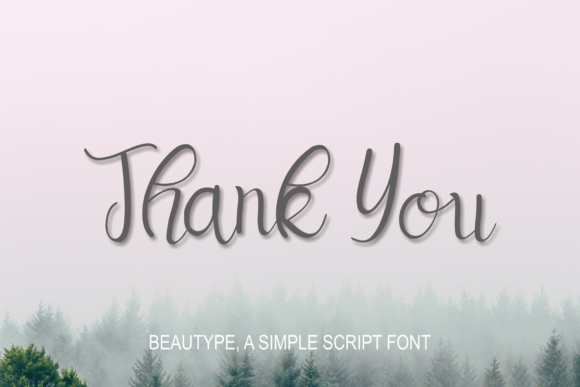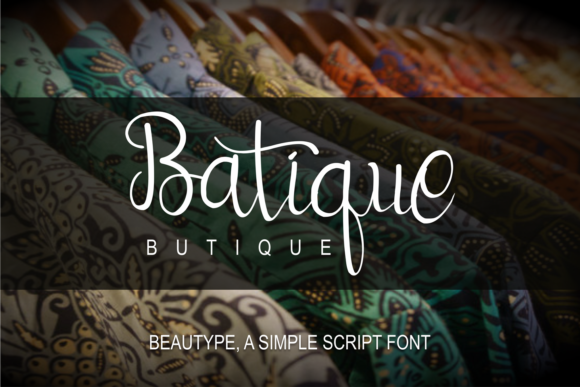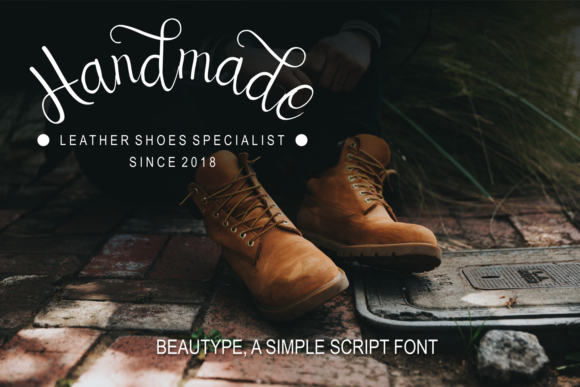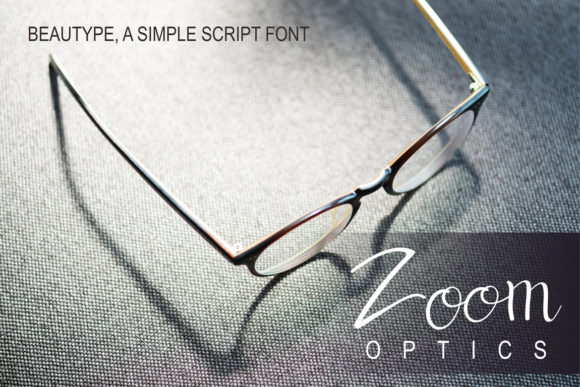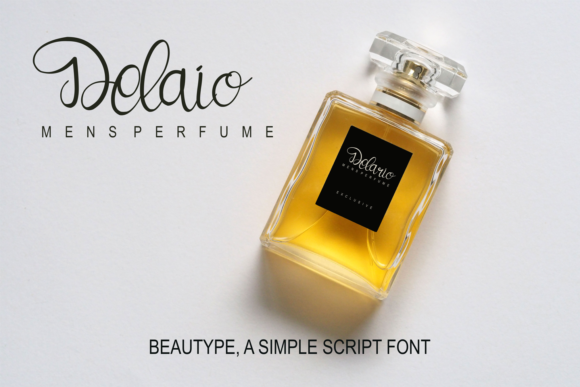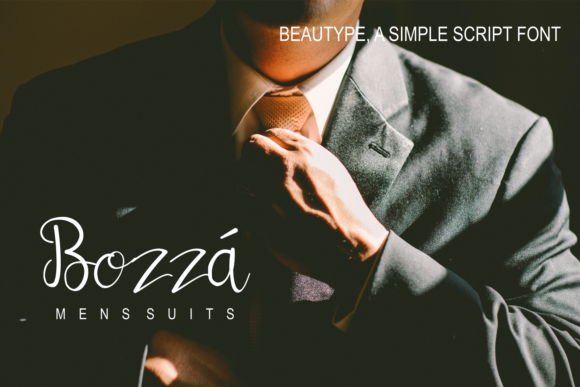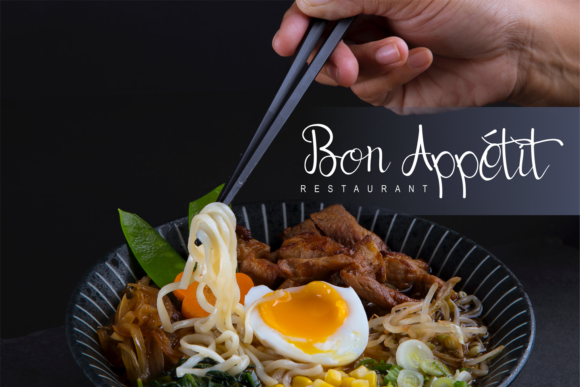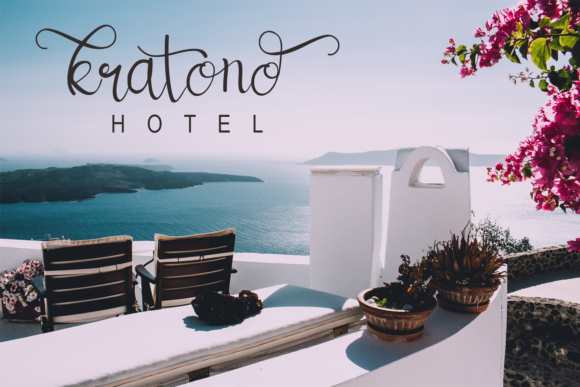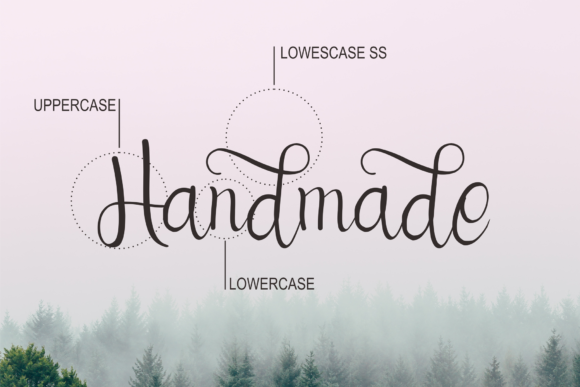
Beautype Font
About Beautype Font
Introducing “The Beautype,” a classy script font designed to bring an elegant and luxurious feel to your projects. This font is not just a typeface; it’s a design asset crafted with sophistication, making it perfect for a wide range of designs that require a touch of elegance and luxury.
“The Beautype” stands out with its classy script that exudes refinement and luxury. Whether you’re working on branding, invitations, logos, or any design that demands an elegant typeface, this font delivers with its timeless and distinctive style.
Its elegant feel and luxurious vibe make “The Beautype” suitable for various applications. Logos designed with this font convey a sense of prestige and sophistication, creating a lasting and memorable impression. Branding materials, invitations, and other designs crafted with “The Beautype” carry a timeless and elegant aesthetic, making them visually striking and upscale.
The overall design of “The Beautype” ensures that your text is presented with clarity and a touch of class. It’s a versatile choice for creating a refined and luxurious look in a variety of creative applications.
In summary, “The Beautype” is more than just a font; it’s a design companion that brings a classy script style with an elegant feel to your projects. Embrace its sophistication for branding, invitations, logos, and more, and let “The Beautype” elevate your designs with a luxurious and timeless touch.